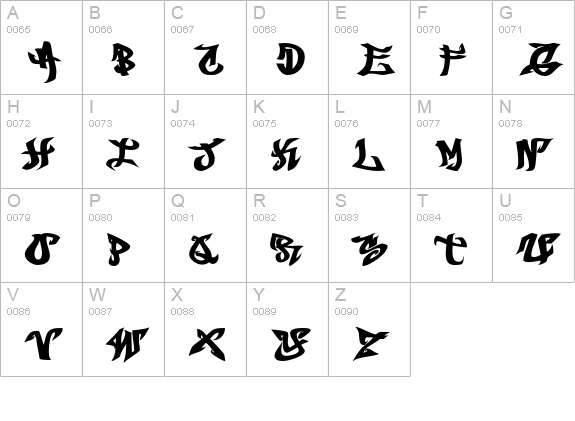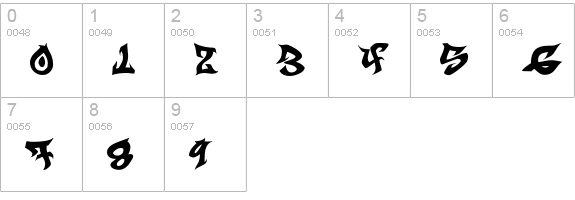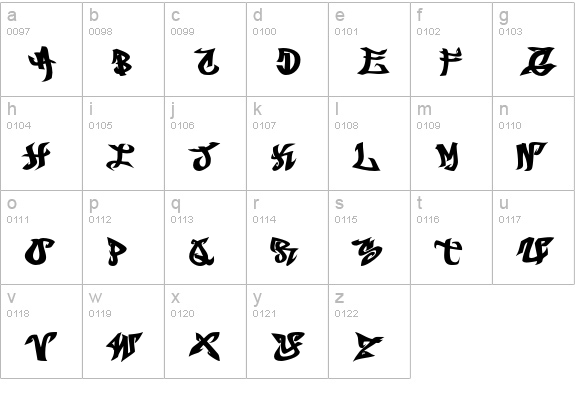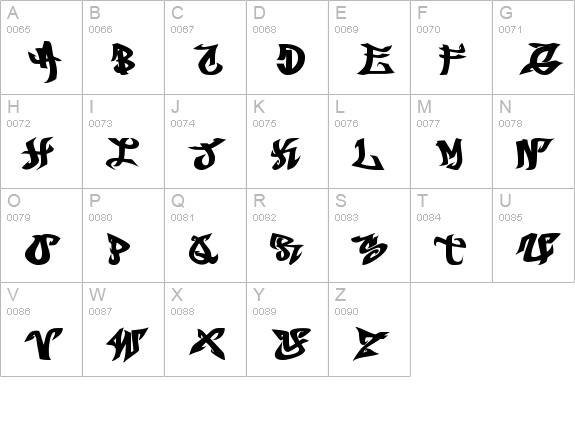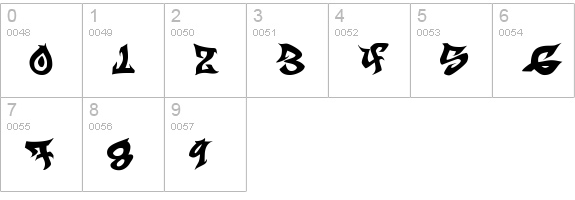
Introducing BREAKBEAT font, a dynamic and energetic typeface that infuses your designs with a bold and modern edge. With its striking geometric shapes and edgy angles, BREAKBEAT is perfect for adding a contemporary twist to your projects. This versatile font is ideal for posters, album covers, logos, and more, making it a must-have for designers looking to make a statement. What's even better is that BREAKBEAT font is completely free to download at FontsMarket.com. Yes, you read that right - this stylish typeface can be yours at no cost, allowing you to unleash your creativity without breaking the bank. So why wait? Elevate your designs with BREAKBEAT font today and watch your projects come to life in a whole new way.